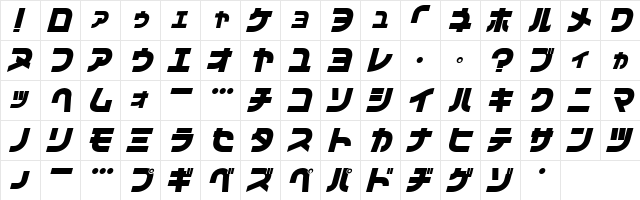
Vifam Regular
Design Context for Vifam Typeface
Vifam offers clean, dependable letterforms without strong stylistic allegiance, making it a practical choice for designers who need flexibility.